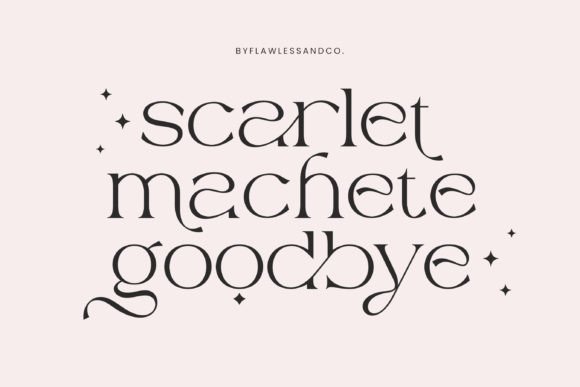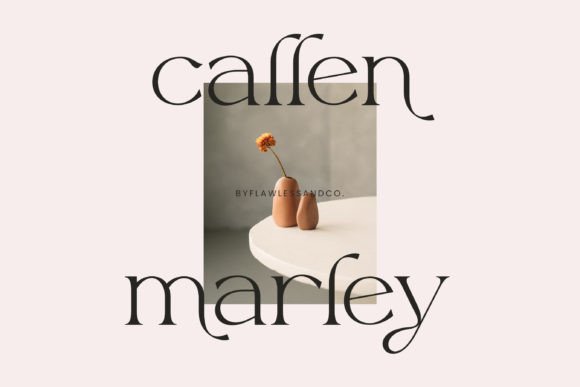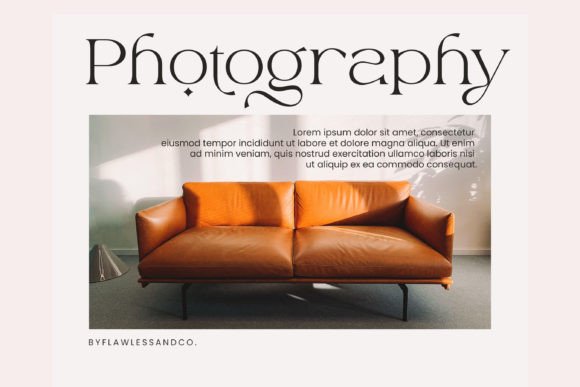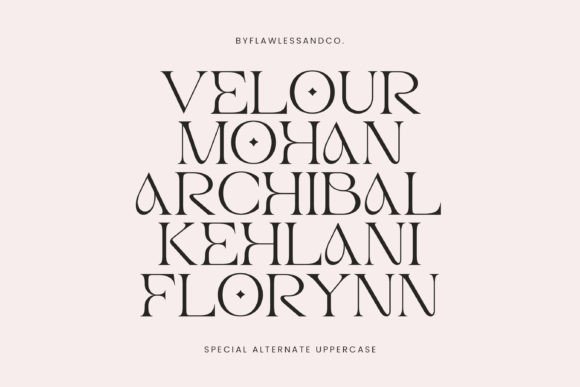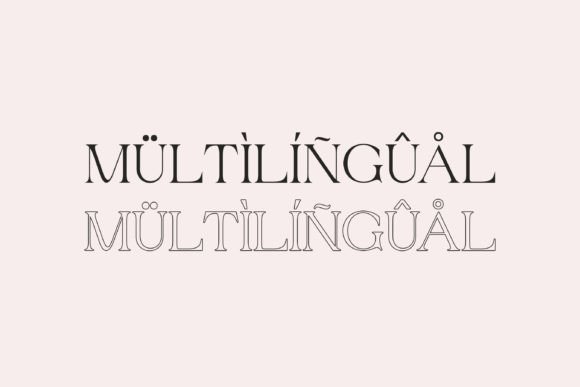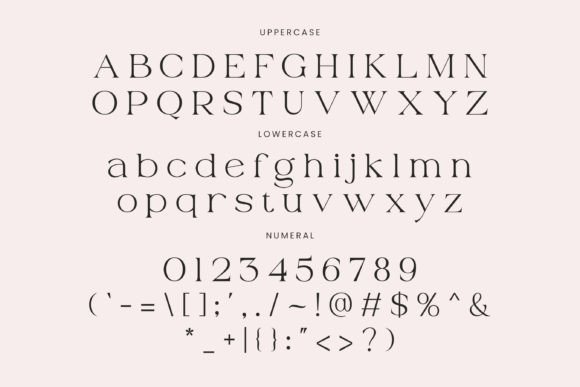
Introducing Grand Malefic Font: Elevate Your Designs with Elegance and Sophistication
In the world of typography, a font can make or break a design. For designers and crafters seeking to add a touch of elegance and sophistication to their work, the Grand Malefic Font is an exceptional choice. This modern elegant serif font boasts connected letters that are perfect for a wide range of applications, from branding materials and logos to t-shirts, posters, photography, quotes, and more.
What Makes Grand Malefic Font Stand Out?
Grand Malefic Font is designed with the modern designer in mind. Its sleek, elegant lines and sophisticated serifs make it an ideal choice for those seeking to create high-end designs. The font features:
• Connected Letters: The font’s connected letters add a touch of elegance and fluidity to any design, making it perfect for creating beautiful, flowing text.
• PUA Encoding: Grand Malefic Font is PUA (Private Use Area) encoded, which means you can access all of the glyphs and swashes with ease. This feature allows for greater flexibility and creativity in your designs.
• Modern Elegance: The font’s modern design ensures that your work looks contemporary and stylish, making it perfect for a wide range of applications.
Grand Malefic Font is an incredibly versatile font that can be used in a multitude of design projects. Some of the many applications include:
• Branding Materials: Create stunning logos, business cards, and letterheads that exude elegance and sophistication.
• T-Shirts and Apparel: Add a touch of style to your t-shirt designs, making them perfect for fashion brands, events, or personal projects.
• Posters and Flyers: Create eye-catching posters and flyers that grab attention and leave a lasting impression.
• Photography: Use Grand Malefic Font to add a touch of elegance to your photography, creating beautiful captions and quotes.
• Quotes and Inspirational Content: Create stunning inspirational quotes, social media graphics, and more that motivate and inspire.
Why Choose Grand Malefic Font?
With so many fonts available, why choose Grand Malefic Font? Here are just a few reasons:
• Unique and Distinctive: Grand Malefic Font offers a unique and distinctive look that sets it apart from other fonts.
• Ease of Use: The font’s PUA encoding makes it easy to access all of the glyphs and swashes, allowing you to focus on your design rather than getting bogged down in technical details.
• High-Quality Design: The font is designed with high-quality in mind, ensuring that your work looks professional and polished.
Tips for Using Grand Malefic Font
To get the most out of Grand Malefic Font, here are a few tips:
• Experiment with Different Sizes: Play around with different font sizes to find the perfect balance for your design.
• Pair with Other Fonts: Try pairing Grand Malefic Font with other fonts to create a unique and visually appealing combination.
• Use Swashes and Glyphs: Take advantage of the font’s PUA encoding to access a wide range of swashes and glyphs, adding an extra layer of elegance to your design.
In conclusion, Grand Malefic Font is an exceptional choice for designers and crafters seeking to add a touch of elegance and sophistication to their work. Its modern design, connected letters, and PUA encoding make it perfect for a wide range of applications. With its high-quality design and ease of use, Grand Malefic Font is sure to become a go-to font in your design arsenal.
Font Name Grand Malefic Font
Author Flawless And Co